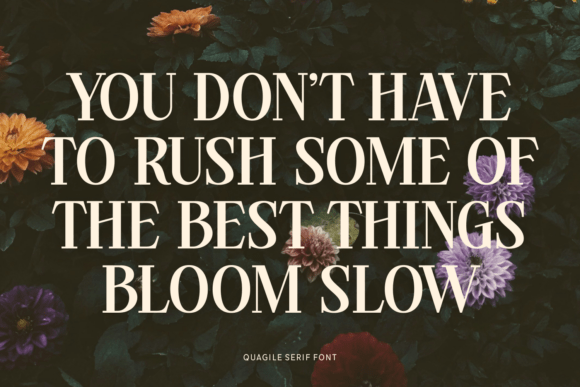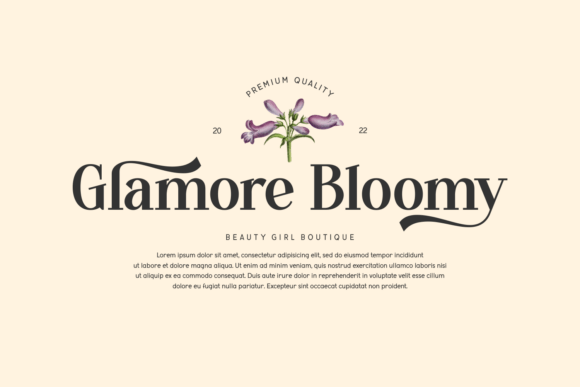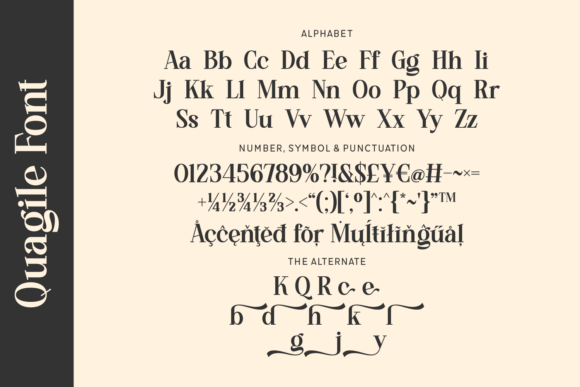
Introduction to Quagile Font
Have you ever found yourself staring at a blank canvas, struggling to bring your creative vision to life? It’s a feeling we’ve all experienced at some point, but with the right tools, it can become a thing of the past. For designers, the perfect font can be the key to unlocking a project’s full potential.
That’s where Quagile Font comes in – a stunning new addition to the world of typography. Its unique blend of retro-chic character and modern flair makes it the perfect choice for any creative project. Whether you’re working on a branding campaign or designing a website, Quagile Font is sure to add a touch of sophistication and style.
Key Features of Quagile Font
- Quagile Font comes with a transparent background, making it perfect for overlaying on images or videos.
- Quagile Font is available in a range of sizes, from 100px to 1000px, making it suitable for various design applications.
- With a resolution of 300 DPI, Quagile Font ensures crisp and clear text, ideal for print and digital designs.
- Unique characteristics include a modern, elegant design and a wide range of glyphs, making it perfect for creative projects.
Honest Review: Quagile Font
I recently came across the Quagile Font while searching for a design resource for my next creative project. The first thing that caught my eye was the sleek and modern design of the font. The transparent background made it easy to use on any design element, whether it was a logo or text overlay.
What works well: ✨ The font is highly customizable, with a wide range of sizes and styles to choose from. This made it easy to experiment with different layouts and find the perfect fit for my design. The font also has a high level of clarity, making it easy to read even at smaller sizes.
Limitations: ⚠️ While the font is high quality, it’s not suitable for all types of projects. The modern design may not be the best fit for traditional or formal designs. Additionally, the font is not free to download, which may be a drawback for some designers.
Overall, I was impressed with the Quagile Font and would recommend it to designers looking for a high-quality, modern font for their creative projects. While it may not be suitable for all types of projects, it’s definitely worth considering for those looking for a sleek and modern design element.
- Clear and easy to read
Tips for Getting the Most Out of Quagile Font
To get the most out of the Quagile Font, use it in combination with other high-quality design resources. Experiment with different font sizes, colors, and arrangements to create a unique and creative look. Also, make sure to save your project with the Quagile Font installed to ensure it looks the same on different devices.
The Quagile Font is suitable for a wide range of creative projects, including business cards, brochures, posters, and social media graphics. It’s also a great choice for designers who want to add a touch of elegance and sophistication to their designs.
Is the Quagile Font available with a transparent background?
Yes, the Quagile Font is available with a transparent background, making it ideal for use in design projects where a clear background is required. This feature is especially useful for designers working on high-quality graphics and visual elements.